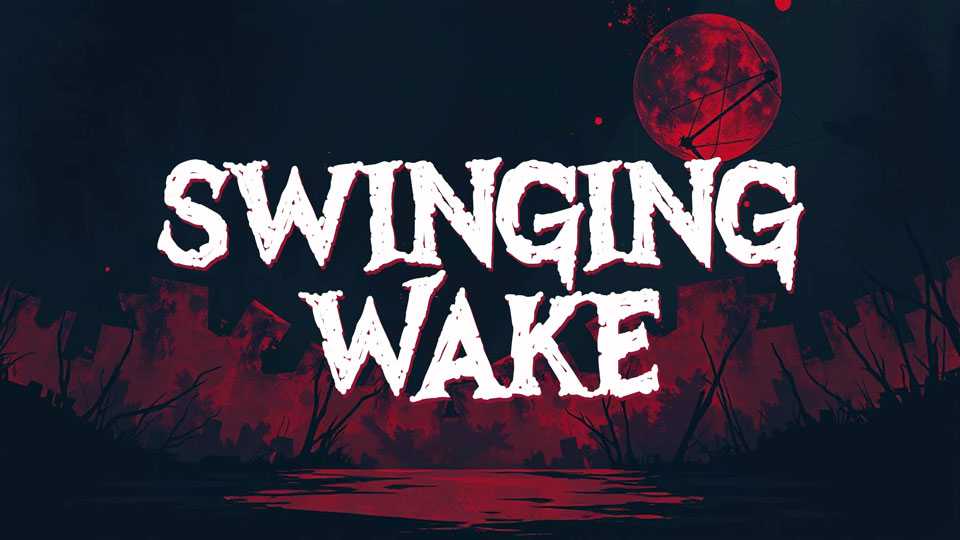
Download Swinging Wake font, a jagged and bold horror typeface that brings raw energy to the page. Its sharp, uneven edges create an unsettling, vintage fright-night aesthetic.
Designer: Sinister Fonts